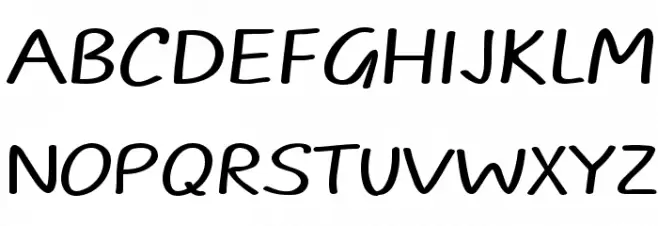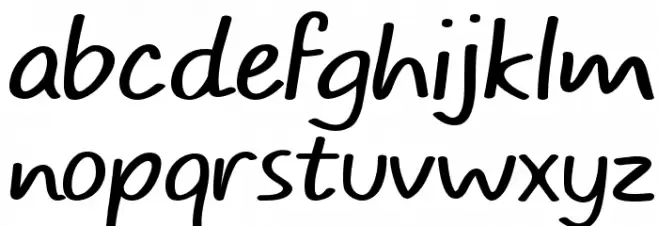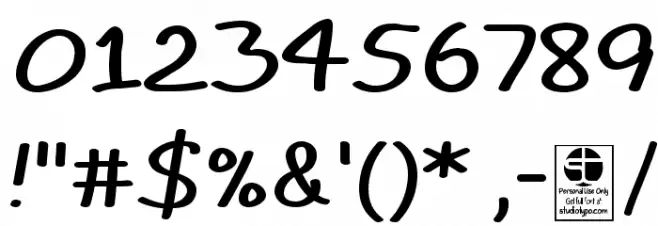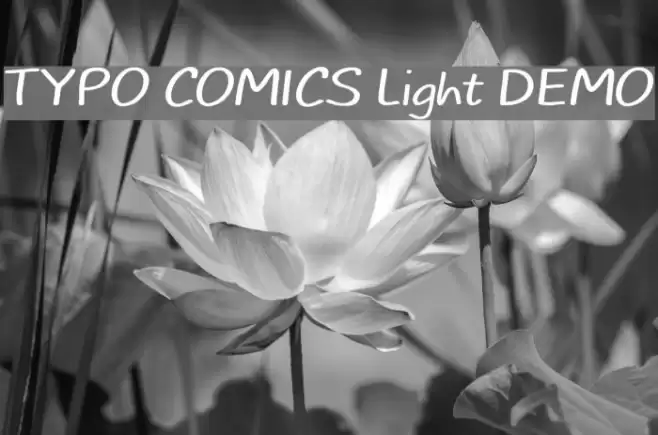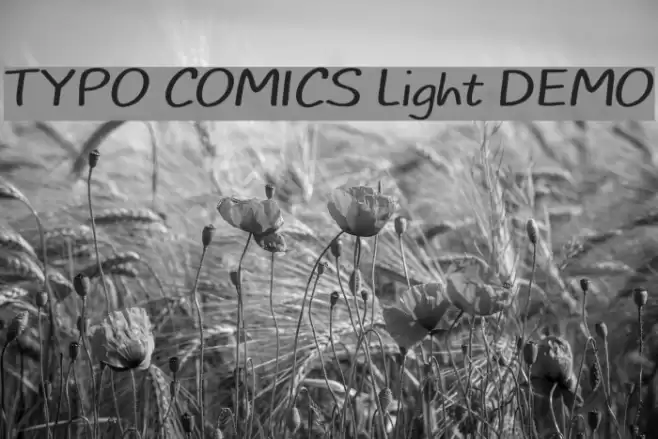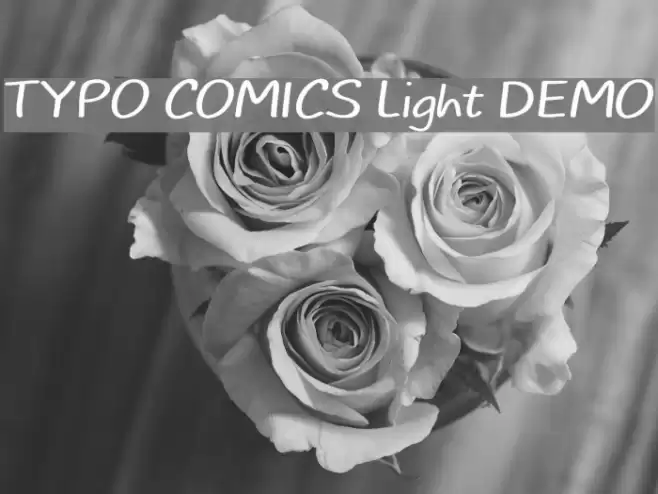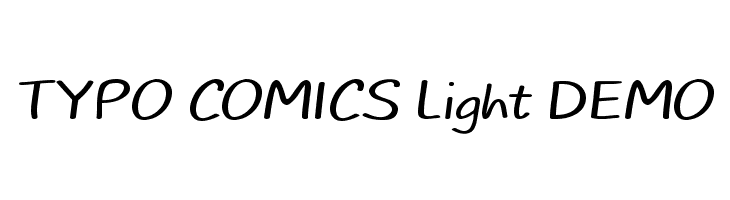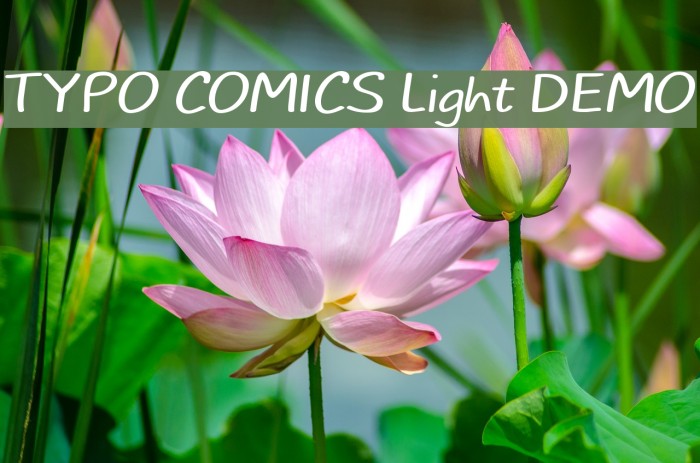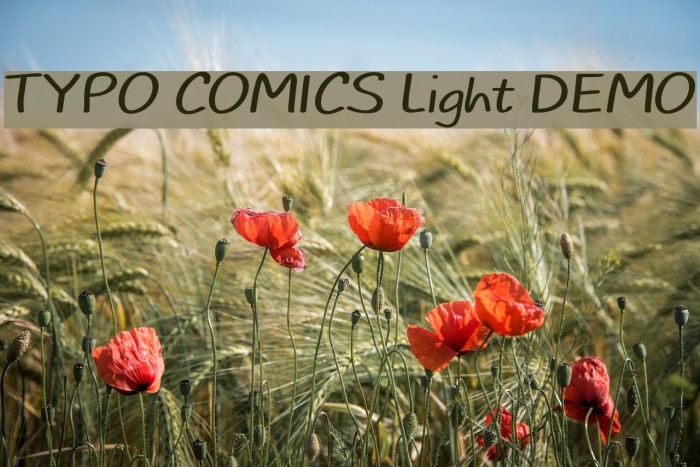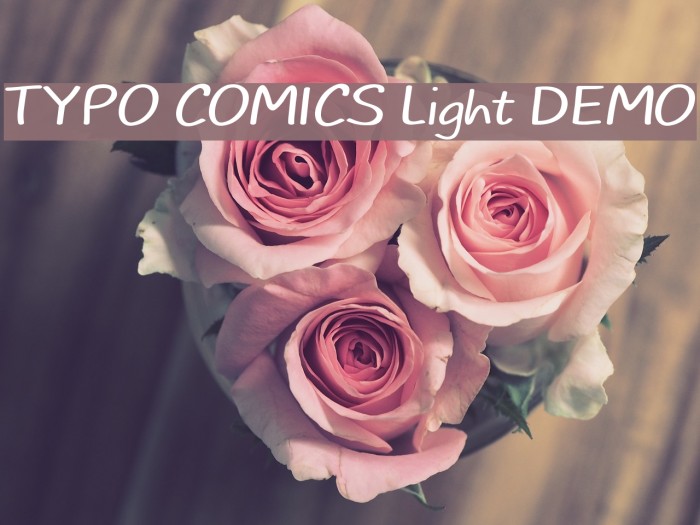
TYPO COMICS Light DEMO
This playful and casual font features a handwritten style with smooth, rounded edges and a friendly appearance. The characters are slightly slanted, giving a dynamic and informal feel. The uppercase and lowercase letters are well-balanced, with consistent stroke widths that maintain readability. The numerals and special characters complement the overall style, making it versatile for various uses. Its light weight and fluid curves create an inviting and approachable look, ideal for projects that require a touch of personality and warmth.
A playful, handwritten font with smooth, rounded edges and a casual, friendly appearance.
- Proposed Projects: Ideal for comic strips, children's books, casual invitations, and playful branding.
- Weight: Light
- Overall Style: Casual
- Use Case: Headlines, Logos, Informal Text